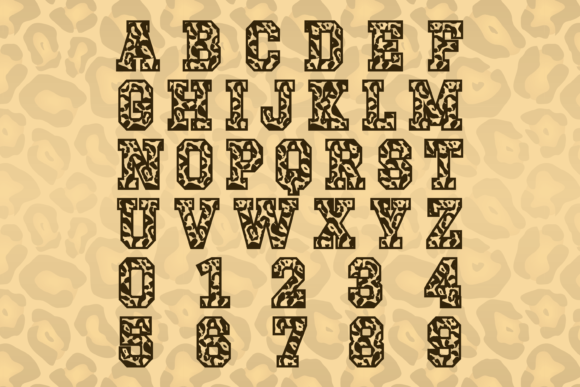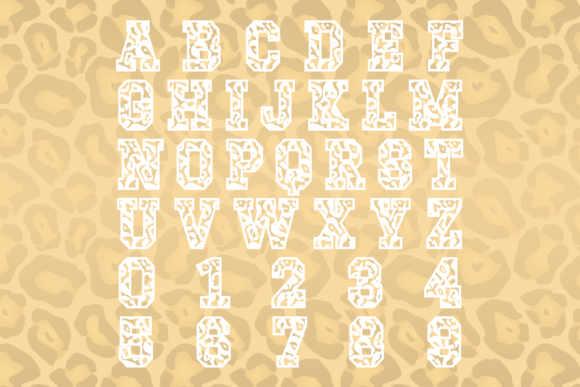
Introduction to Jaguar Font
Jaguar is an incredibly cool font containing cute Jaguar things.
Whether you use it for custom designs, DIY crafts, or just any creation that requires a lovely touch, this font will be an amazing choice .
Key Features of Jaguar Font